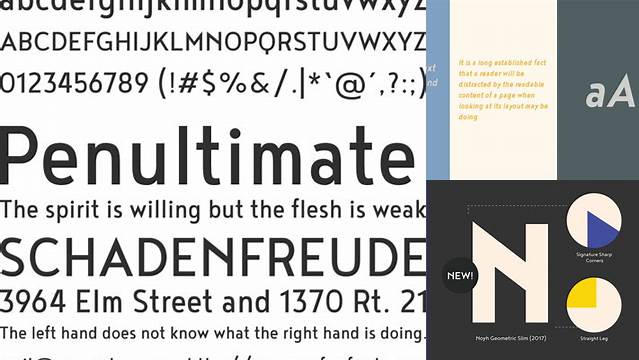
Noyh Geometric Slim Font: Free Download & Design
Hey there, design enthusiasts and font fanatics! Are you guys on the hunt for that perfect typeface that screams modern, sleek, and utterly sophisticated? Well, get ready because we're diving deep into the world of the Noyh Geometric Slim Font. This isn't just any font; it's a design statement, and the best part? We're going to talk all about how to get your hands on a free Noyh Geometric Slim Font download and how to rock it in your projects. Trust me, by the end of this article, you'll be a Noyh pro, ready to elevate your designs to a whole new level of cool. Let's dig in!
Unveiling the Noyh Geometric Slim Font: A Designer's Dream
When we talk about the Noyh Geometric Slim Font, we're really talking about a typeface that embodies elegance and precision. This font isn't just a collection of letters; it's a carefully crafted system where every stroke, every curve, and every angle has been meticulously designed to create a sense of balance and harmony. For us designers, finding a font that offers both aesthetic appeal and incredible versatility is like striking gold, and the Noyh Geometric Slim Font truly fits that description. It stands out with its clean lines and minimalist approach, making it an absolute darling in the design community, especially for those who appreciate modern, contemporary styles. The slim nature of the font gives it an airy, light feel, preventing it from ever feeling heavy or overwhelming, even in denser text blocks. This characteristic is precisely what makes it so appealing for projects where clarity and sophistication are paramount. We're talking about everything from high-end branding to sleek editorial layouts. Its geometric foundation means it’s built on simple, universal shapes like circles, squares, and triangles, which lends it a timeless quality that won't go out of style next season.
What makes the Noyh Geometric Slim Font a designer's dream, you ask? Well, it's not just its good looks. It's also incredibly readable, despite its slim profile. This is crucial for any font, as beauty without functionality is, let's be honest, pretty useless in design. The consistent stroke widths and generous letter spacing ensure that even at smaller sizes, the text remains crisp and legible, which is a huge plus for web design, app interfaces, and even fine print in print materials. The distinct character shapes prevent confusion between similar-looking letters, a common pitfall for some ultra-minimalist typefaces. Furthermore, the availability of a free Noyh Geometric Slim Font download option makes it accessible to a wider range of creatives, from students and hobbyists to seasoned professionals working on tight budgets. This accessibility democratizes good design, allowing more people to experiment with and implement high-quality typography in their work. Imagine being able to create stunning visuals without having to break the bank on premium fonts! That’s the power we're tapping into here. So, if you're looking for a font that combines modern aesthetics with unwavering functionality and the cherry on top is that you can often find a free Noyh Geometric Slim Font download, then you, my friend, have hit the jackpot. This typeface isn't just about looking good; it's about making your designs look effortlessly professional and incredibly polished, giving your work that distinct edge it needs to truly shine in a crowded visual landscape.
But it's not just about the cost, guys. The Noyh Geometric Slim Font itself offers immense value. Its clean, geometric structure makes it incredibly versatile. Think about it: whether you're designing a sleek tech website, a minimalist fashion magazine, an elegant wedding invitation, or a modern app interface, this font can adapt beautifully. Its neutrality, born from its geometric foundations, means it doesn't carry heavy stylistic baggage, allowing it to blend seamlessly into various design contexts without overpowering other elements. This versatility reduces the need to hunt for multiple fonts for different projects, effectively streamlining your workflow. When you download Noyh Geometric Slim Font free, you're not just getting a single font; you're gaining a flexible design asset that can serve a multitude of purposes. It's a true workhorse font that can handle everything from impactful headlines to legible body text, though it truly shines in display settings. Moreover, incorporating a font like Noyh, which boasts such a contemporary and professional feel, can significantly enhance the perceived quality of your designs. It signals to your audience that you understand modern aesthetics and attention to detail. In a competitive creative landscape, presenting polished work can make all the difference, and good typography is a cornerstone of that professionalism. So, whether you're a seasoned pro looking for a reliable, free addition to your font library, or a beginner eager to experiment with top-tier typography without the cost barrier, a free Noyh Geometric Slim Font download is an opportunity you absolutely shouldn't pass up. It's about getting exceptional design power right at your fingertips, making your projects look sharp and sophisticated without costing you a dime, which is, in my book, the ultimate guide to smart design choices.
The Allure of Geometric Slim Fonts in Modern Design
The allure of geometric slim fonts in modern design is undeniable, and the Noyh Geometric Slim Font is a prime example of why. These typefaces captivate designers and audiences alike with their striking combination of simplicity, precision, and forward-thinking aesthetics. At their core, geometric fonts are built upon fundamental shapes—circles, squares, and triangles—which gives them a universal, timeless appeal. When you add the